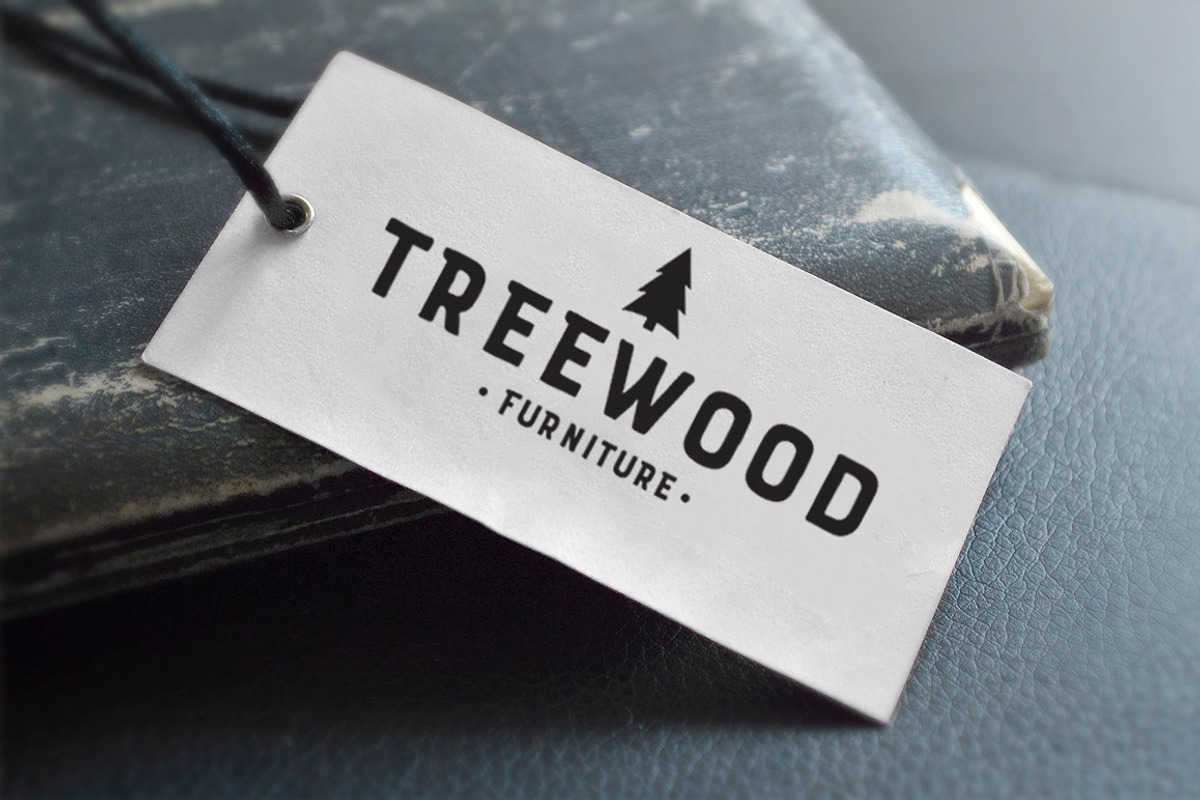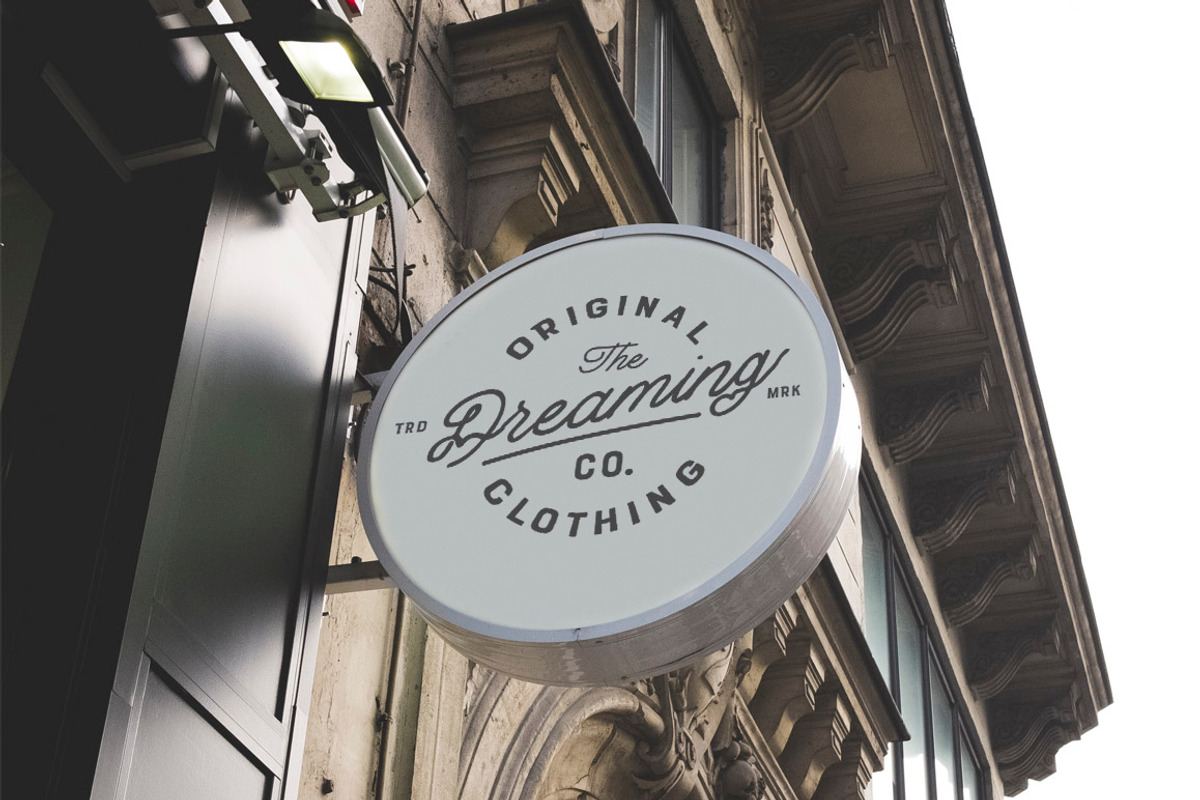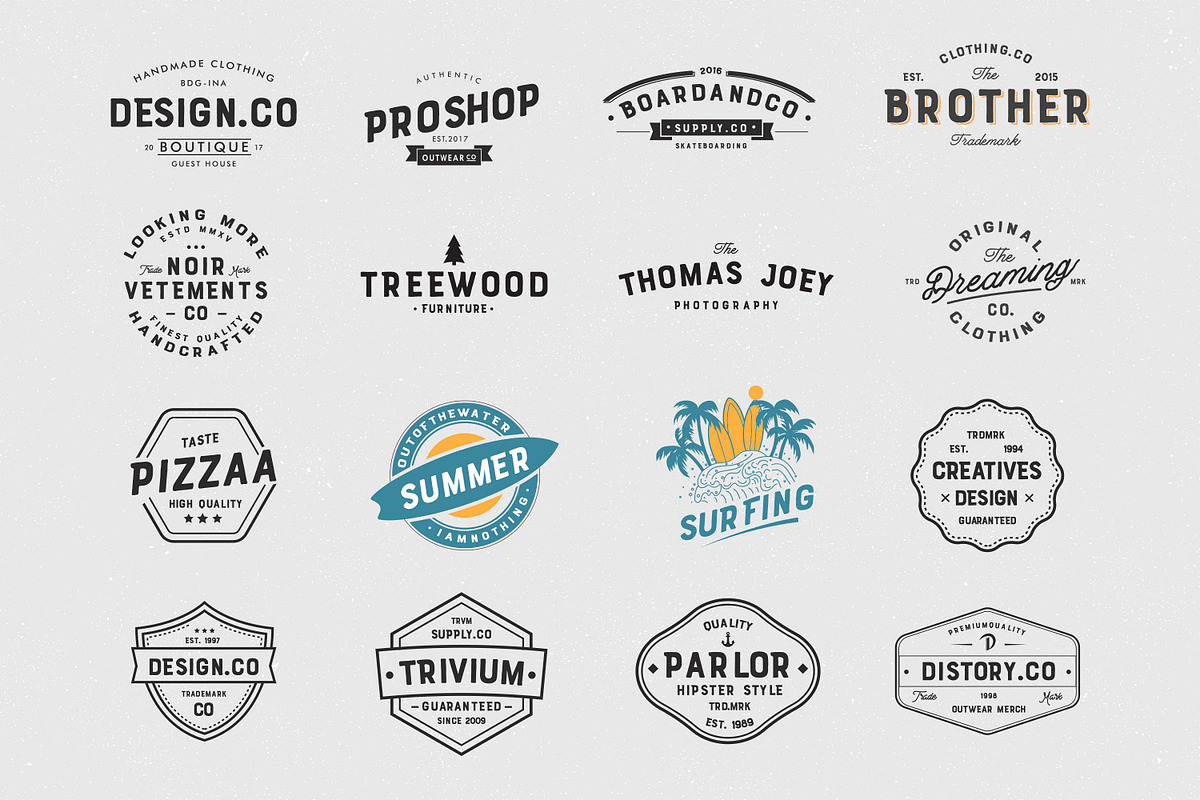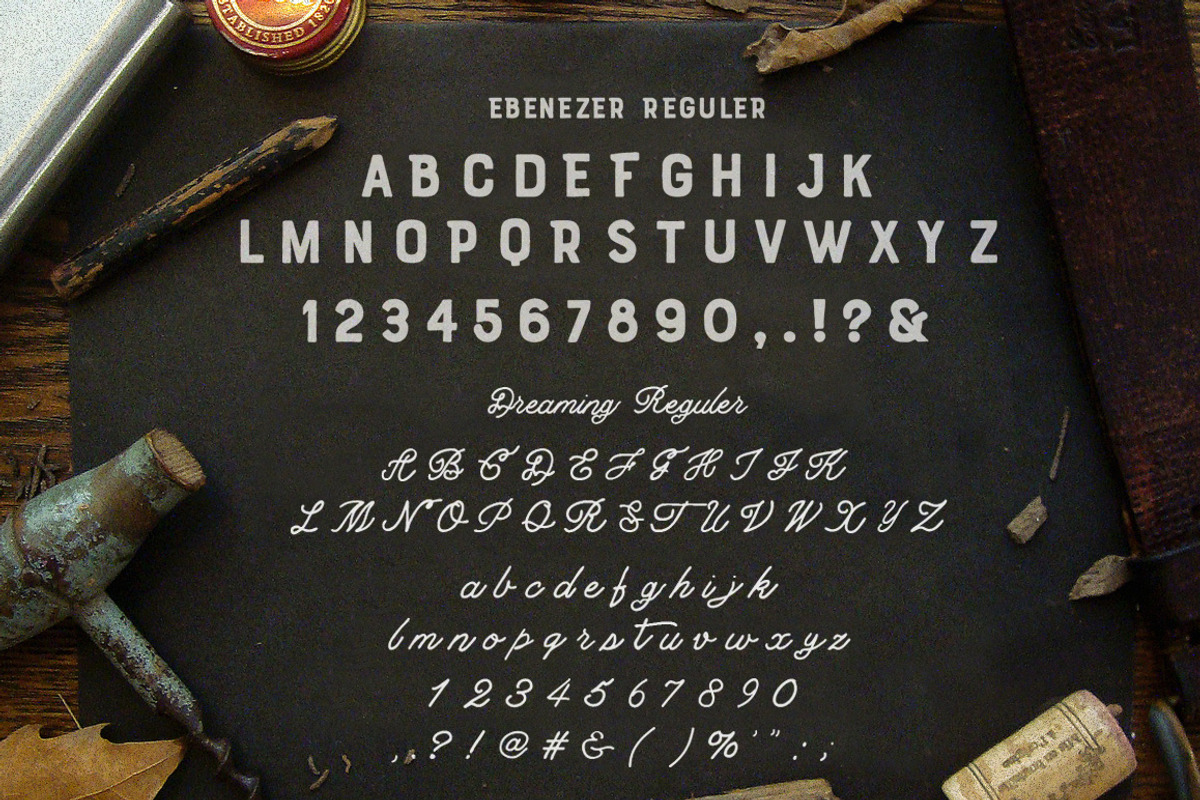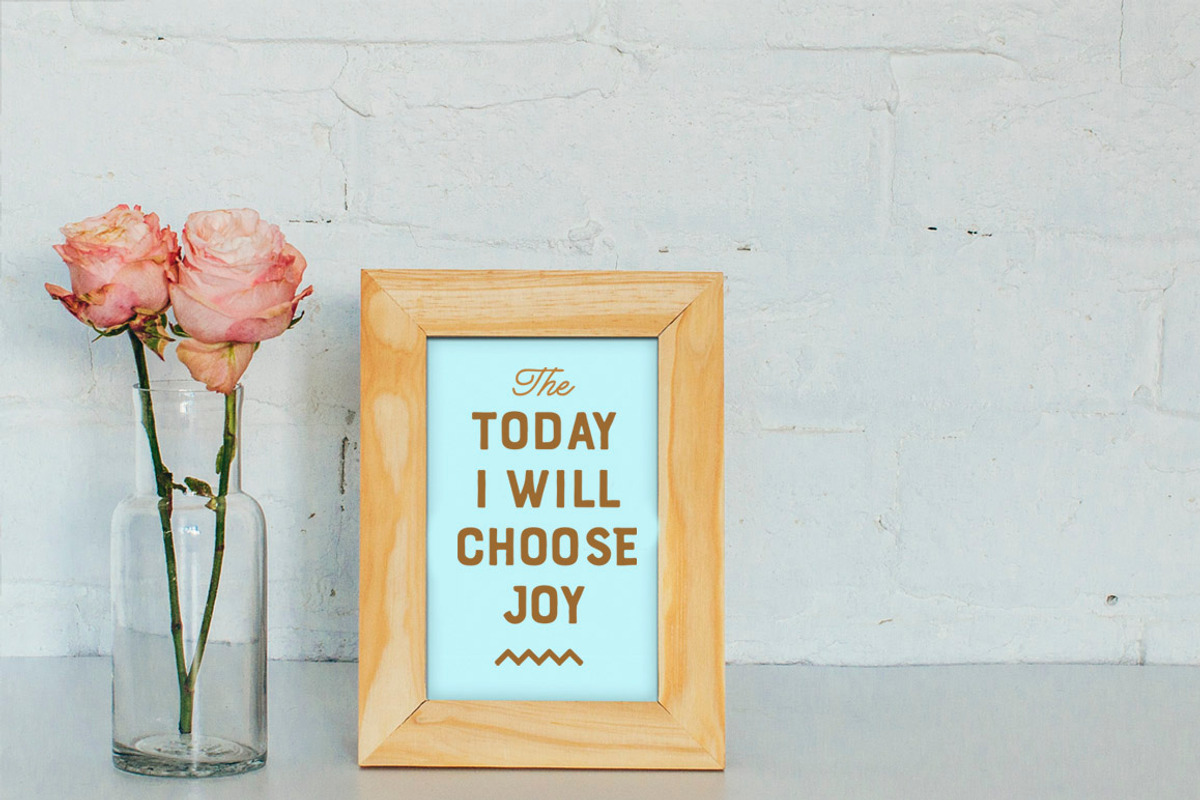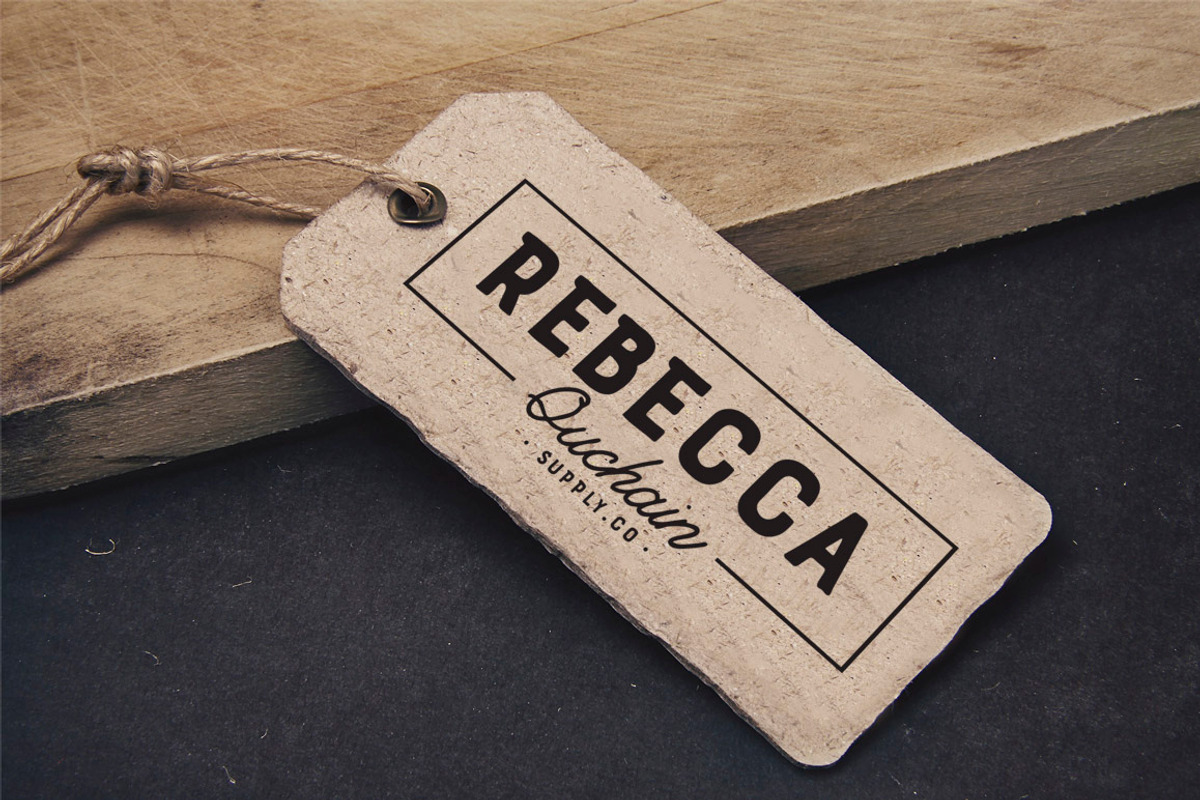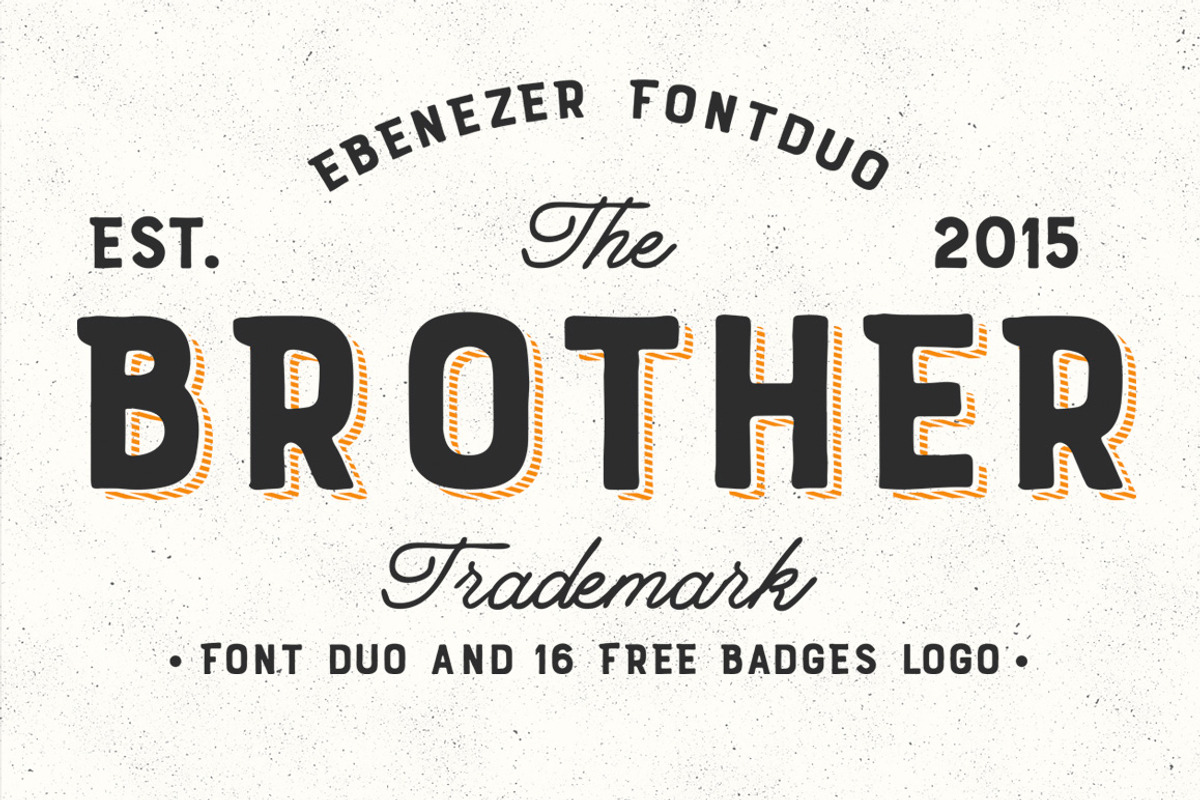
Brother Font Duo (Bonus)
Brother is a beautiful font duo that combines two fonts namely, ebenezer fonts and dreaming fonts that are combined into one pretty package. You will see this combination more in badges logo which will be given free of charge. Brother Font Duo a beautiful for logotype, website header, fashion design, poster, clothing apparel, quotes and will add a beautiful touch of handmade love to your projects- use it for label designs, headlines, logotypes, signage, posters, greeting cards, letterhead , logos and more. Include